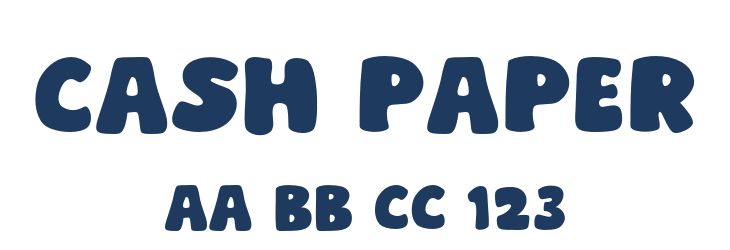
Cashewcream Font
A bold, playful font with thick, rounded characters and a hand-drawn feel.
Cash-Plank Font
Font by Pinisiart
Bold, playful sans-serif with quirky, irregular shapes.
Cashfeer Font
A playful, bold font with rounded edges and a hand-drawn style.
Cashwoots Free Regular Font
A dynamic, flowing script font with elegant cursive strokes.
Cash Paper Font